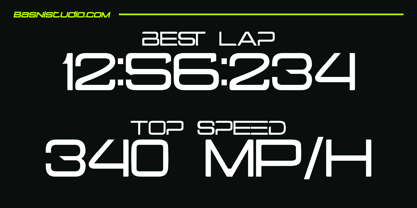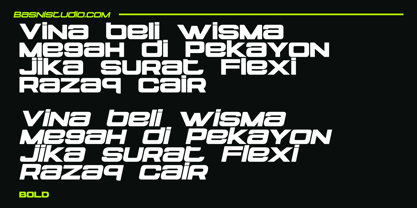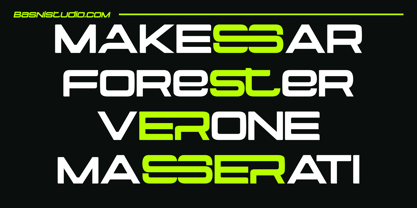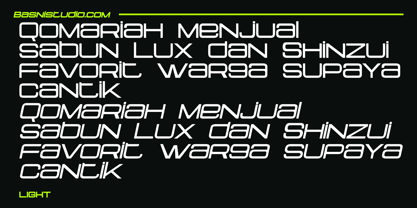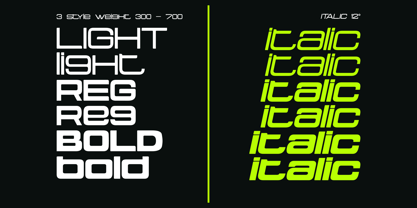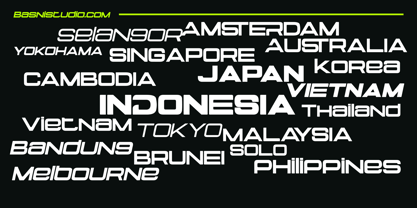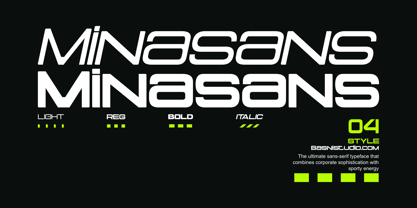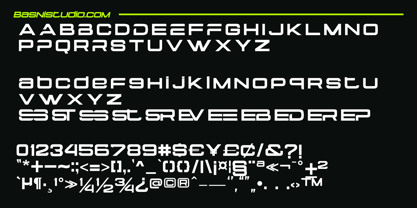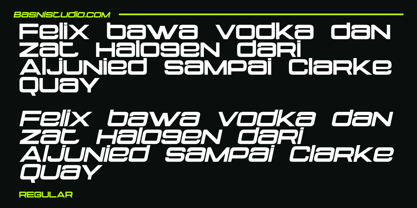
Minasans
by Basnistudio
The Minasans Font Family was designed by Bery Arisandi and published by Basnistudio. Minasans contains 6 styles and family package options.
The Perfect Clean Sans-serif Font Brand Design
Designed for brands that mean business, Minasans is the ultimate sans-serif typeface that combines corporate sophistication with sporty energy. Whether you're crafting a bold brand identity, designing a high-impact website, or creating dynamic marketing materials, this font delivers clarity, confidence, and speed.
Sleek & Professional – A modern, no-nonsense typeface built for impact.
Athletic & Dynamic – Sharp lines and fluid motion make it perfect for sports branding.
Optimized for Performance – Designed for maximum readability and scalability across all screens.
Versatile & Powerful – Available in multiple weights, from light to bold.
• Uppercase & lowercase letters
• Ligature & Alternates
• Numbers & punctuation